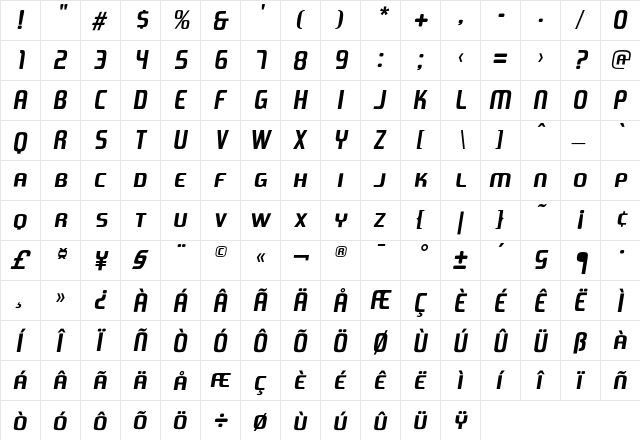
76London Fall
Design Context for 76London Typeface
76London takes a measured approach to typography — its balanced proportions and neutral character make it a reliable workhorse for both digital and print work.